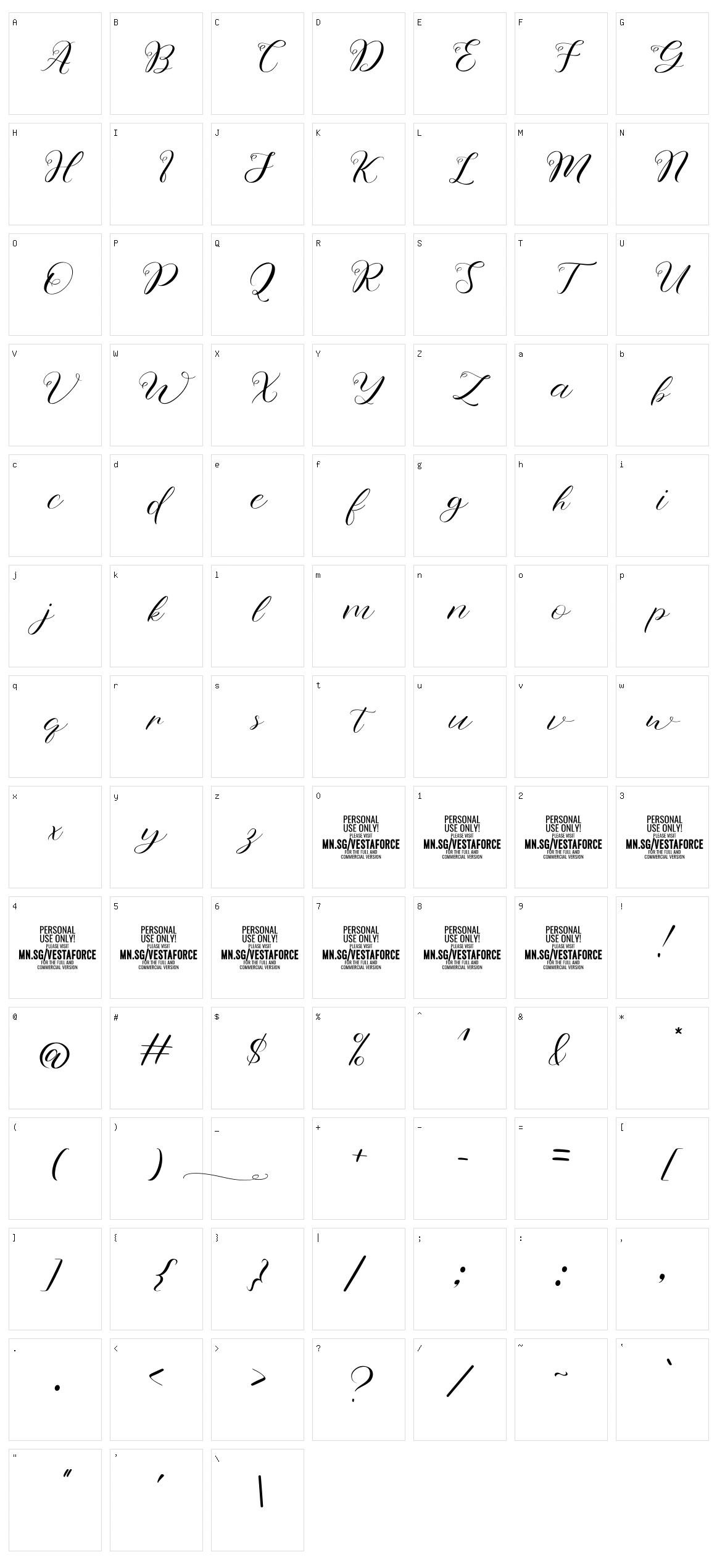
Vestaforce is a swirly handwriting typeface.
In a calligraphic style, this quirky font family will give your project a festive and naive look.
Use it for a cute logotype or a happy poster design.
The Vestaforce typeface family consists of three styles: Thin, Regular and Bold
Use underscore _ to make a swash.
Example: Wonder_woman
Use multiple underscores for different swashes.
Example: Beaut_____iful
The font is built with advanced OpenType functionality and has a guaranteed top-notch quality, containing stylistic and contextual alternates, ligatures and more features; all to give you full control and customizability.